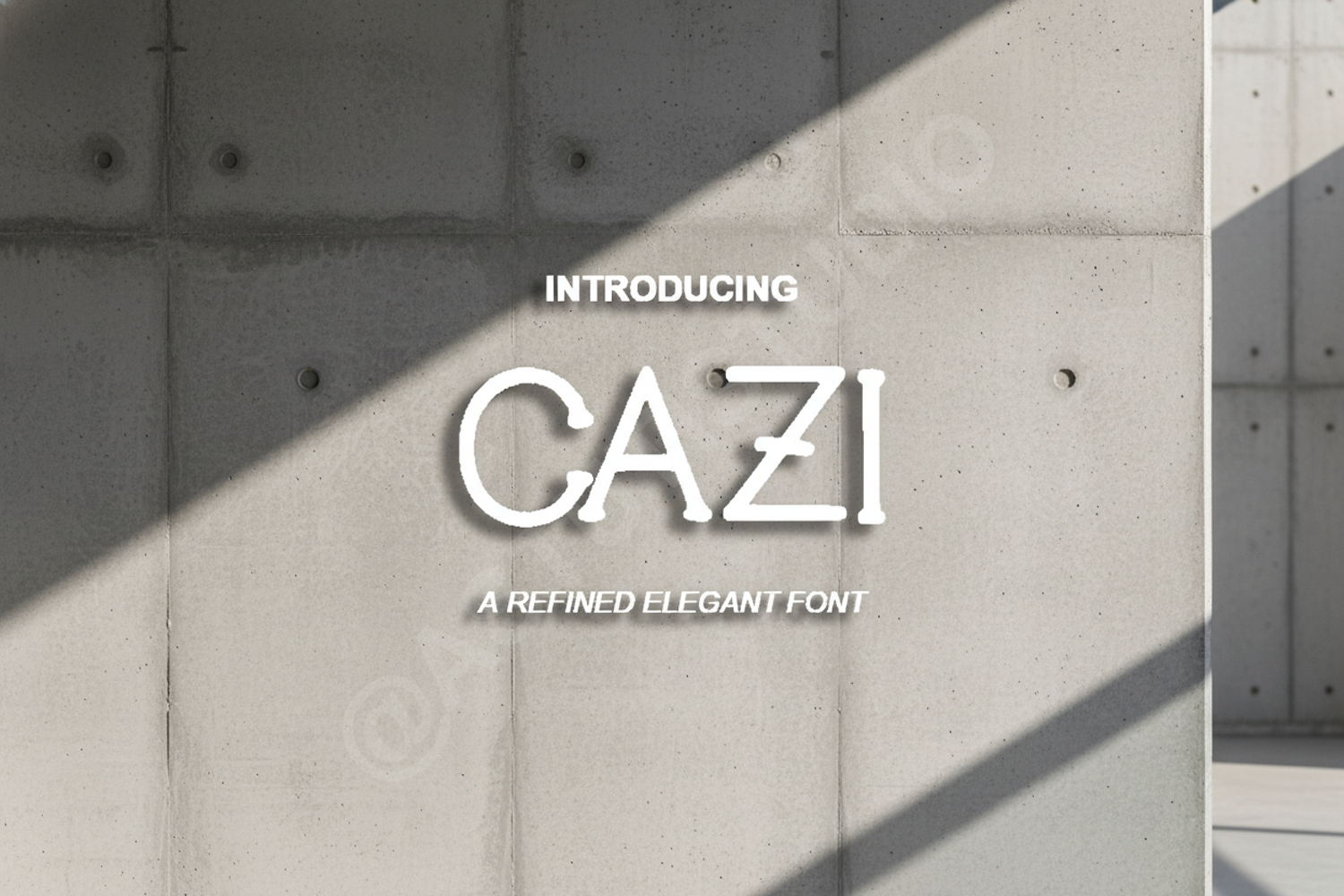
Cazi - Sophisticated Modern Sans Serif
Cazi
Elevate your design projects with Cazi, a premium sans serif typeface that embodies sophistication and modern minimalism. Crafted with precision, Cazi offers a clean aesthetic that balances contemporary flair with timeless appeal, making it an essential addition to any designer's toolkit. Whether you are aiming for a high-end luxury look or a sleek professional vibe, Cazi provides the versatility needed to make your text stand out.
- Full set of Uppercase and Lowercase characters
- Numbers, Punctuation, and Symbols
- Multilingual Support for international design needs
- Branding and Visual Identity: Create impactful logos and cohesive brand guidelines.
- Wedding Stationery: Perfect for elegant invitations, menus, and save-the-date cards.
- Editorial Design: Ideal for magazine layouts, professional headers, and body text.
- Digital Marketing: Enhance social media graphics, web banners, and advertisement assets.
- Product Packaging: Add a high-end, premium touch to labels, boxes, and tags.